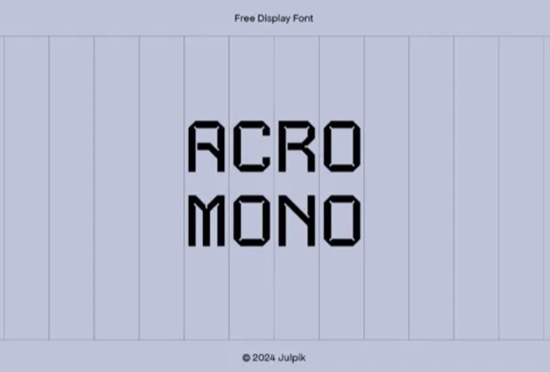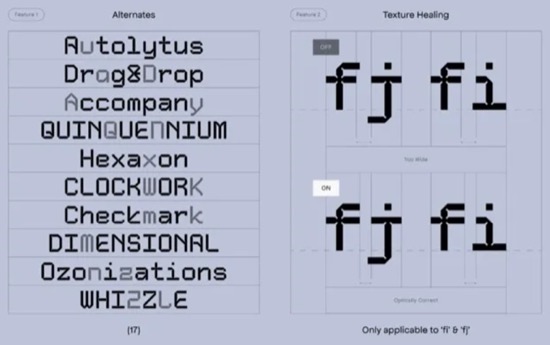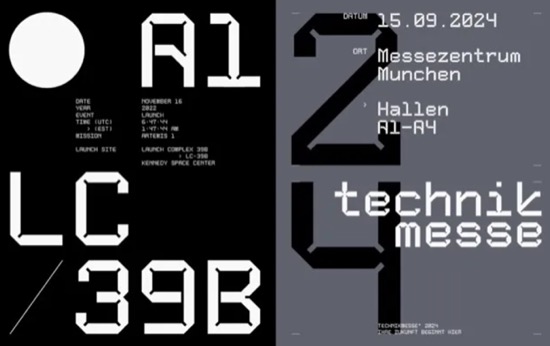
Arcro is a pixelate display font that combines classy aesthetics with modern fantasy. It’s an excellent choice for a wide variety of design projects, including digital game titles, branding, retro-themed posters, logo design, merchandise, website headers, and more.
Acro Mono Display Font